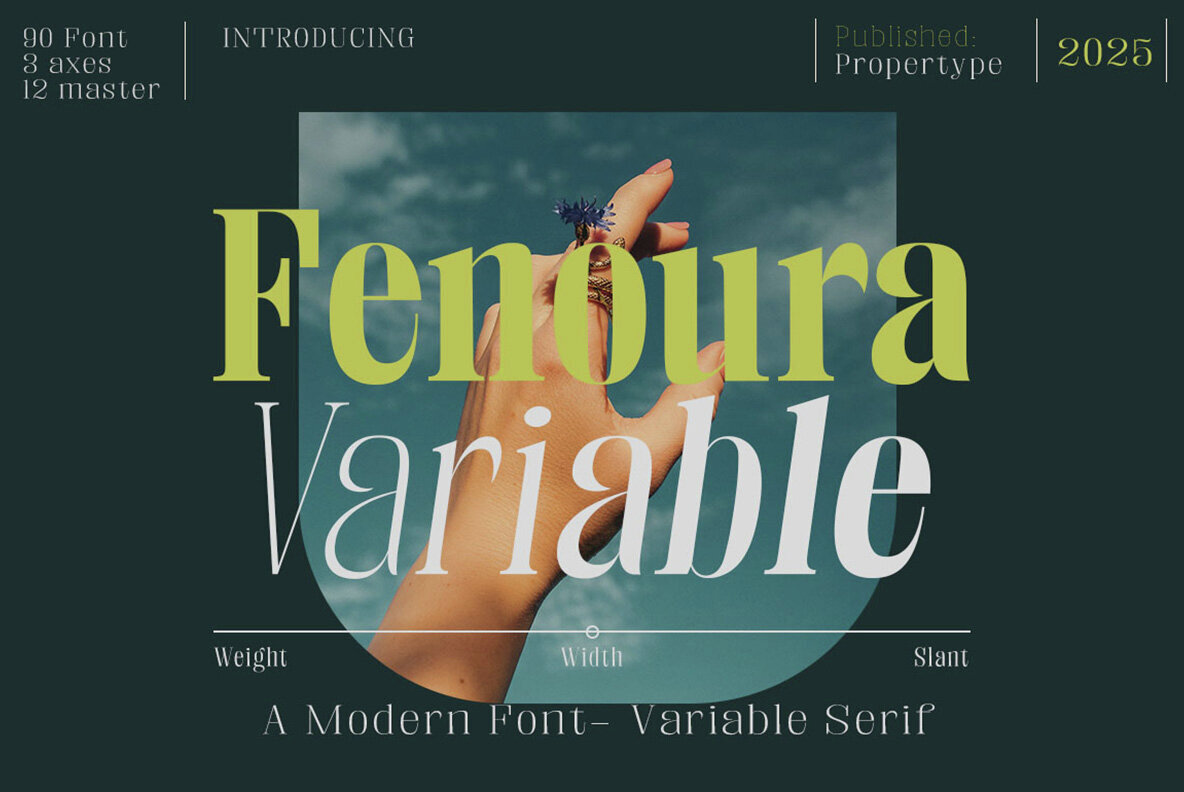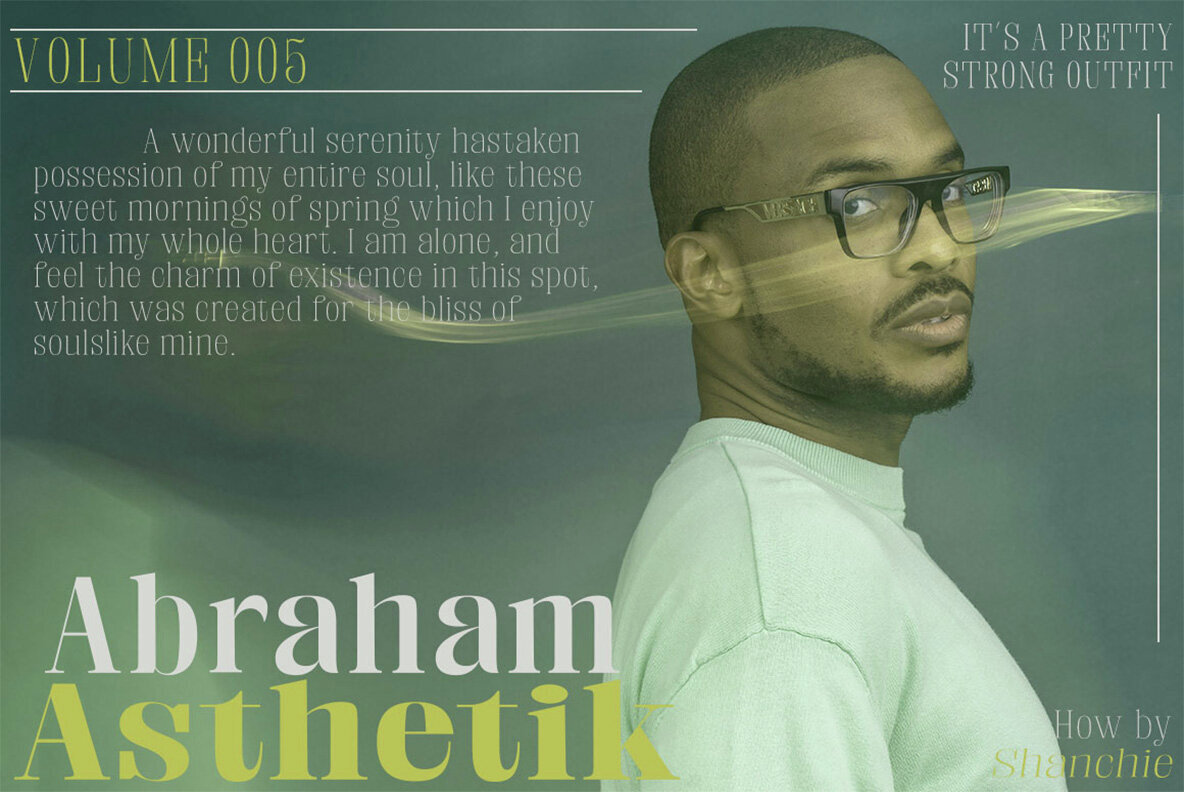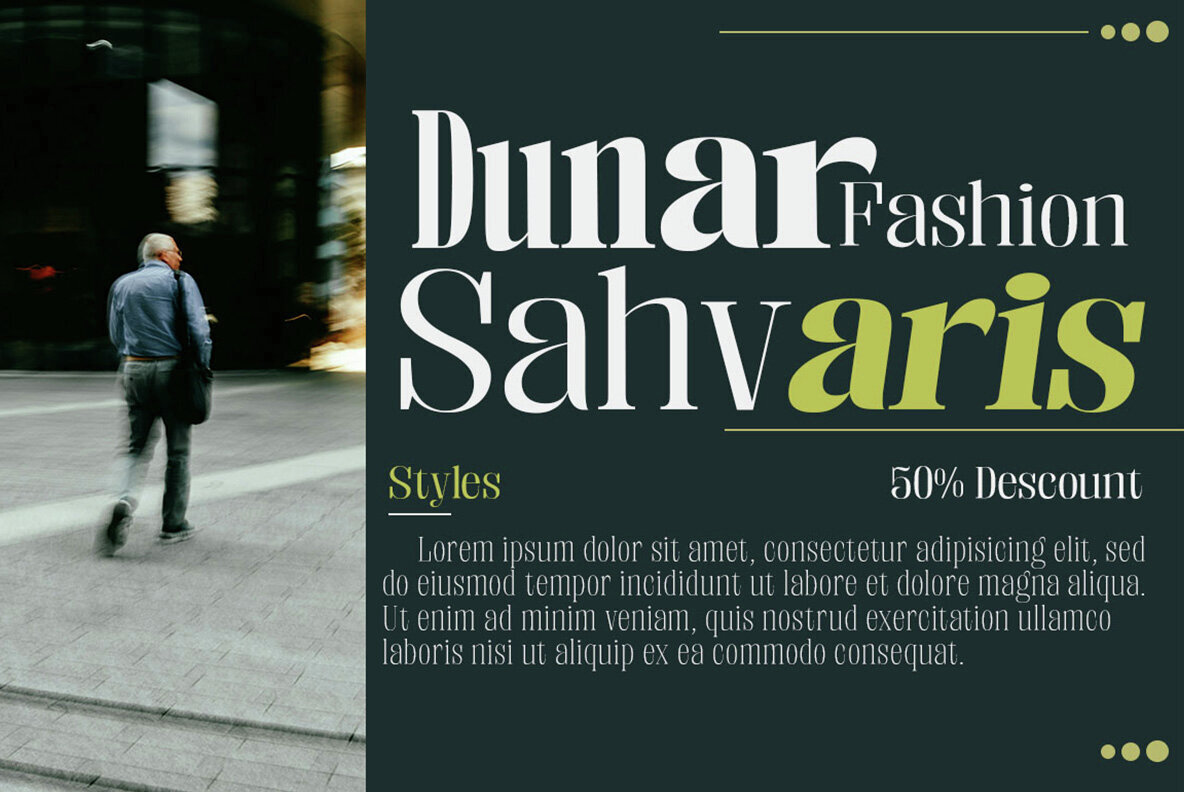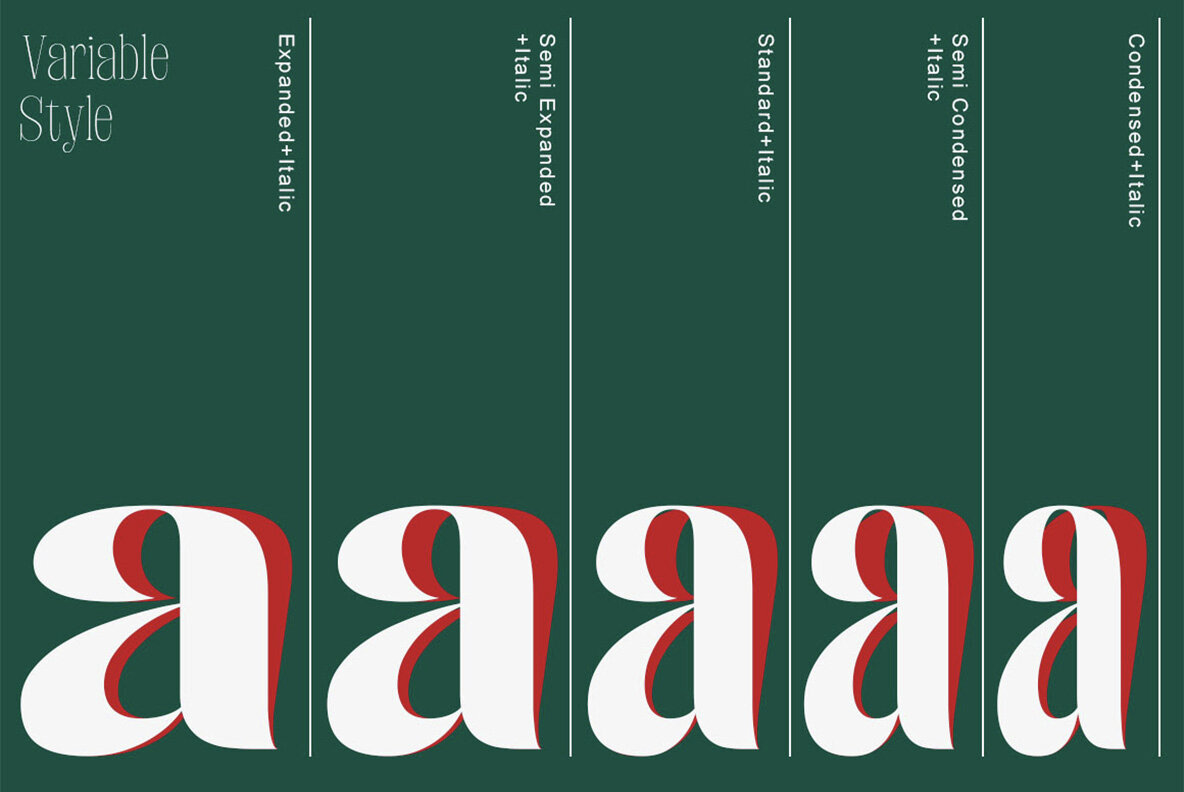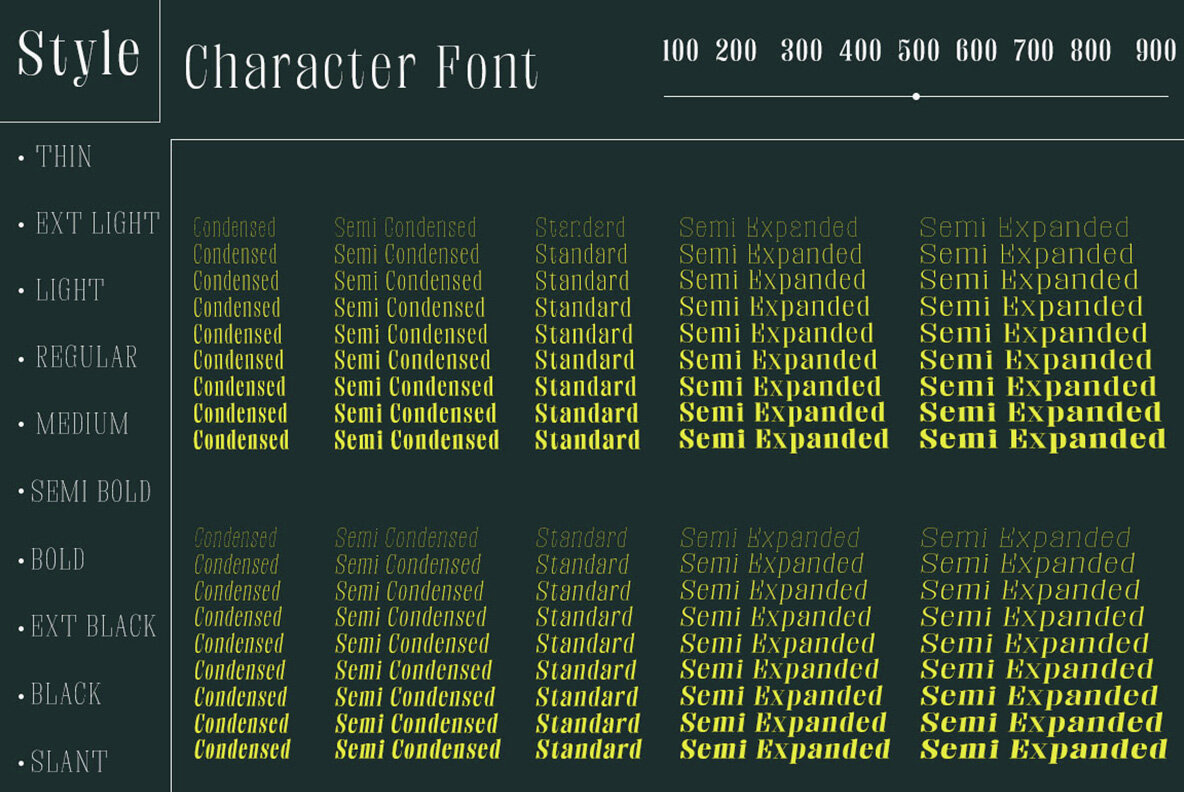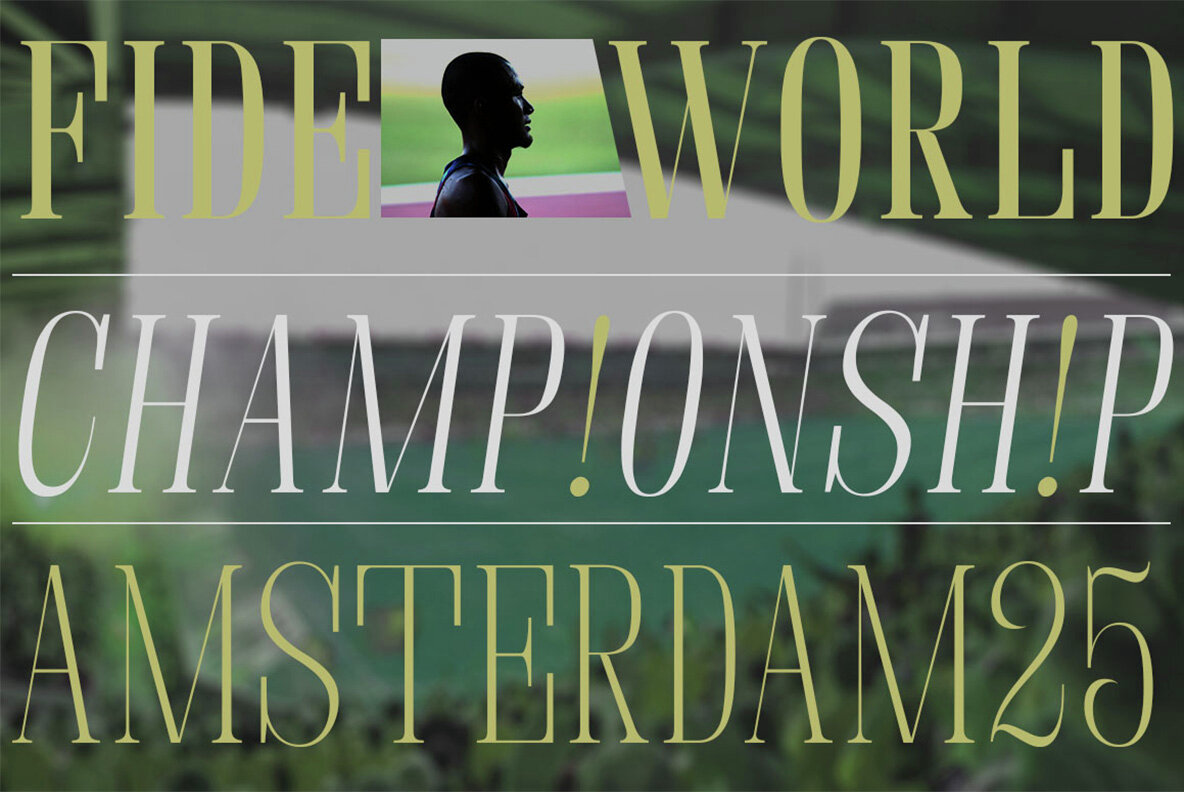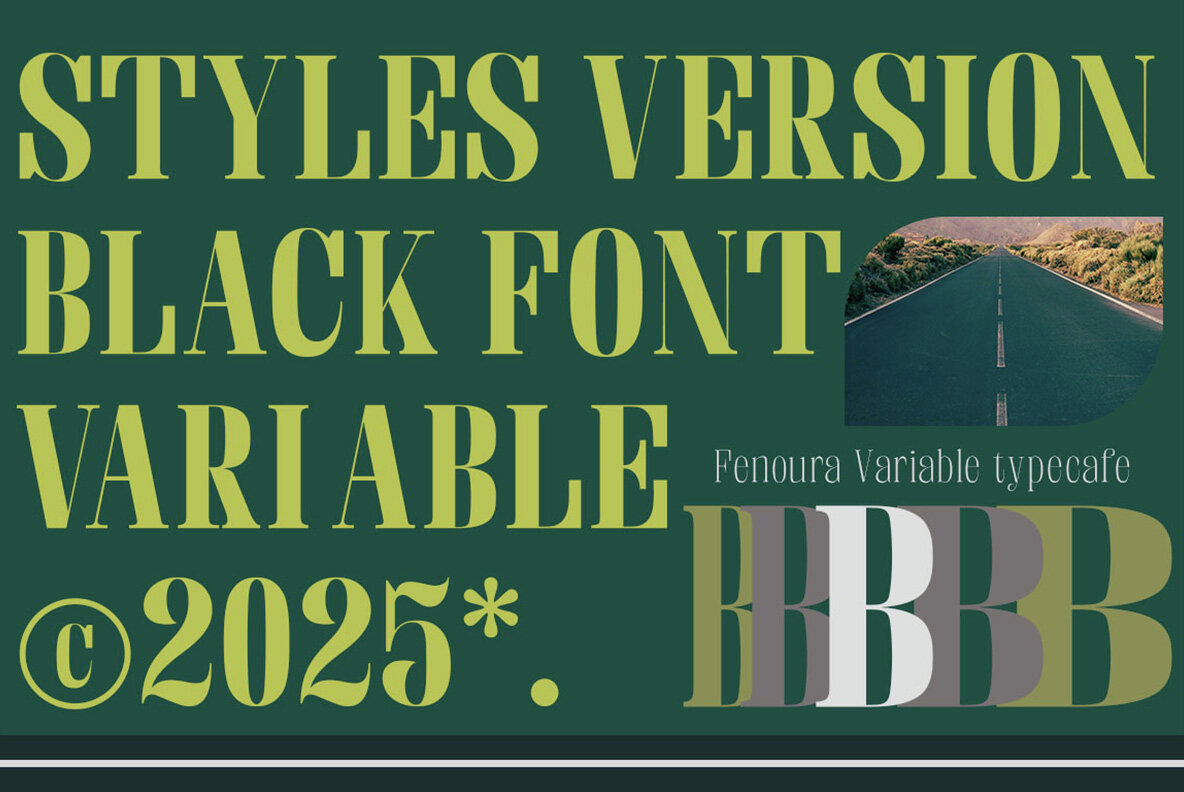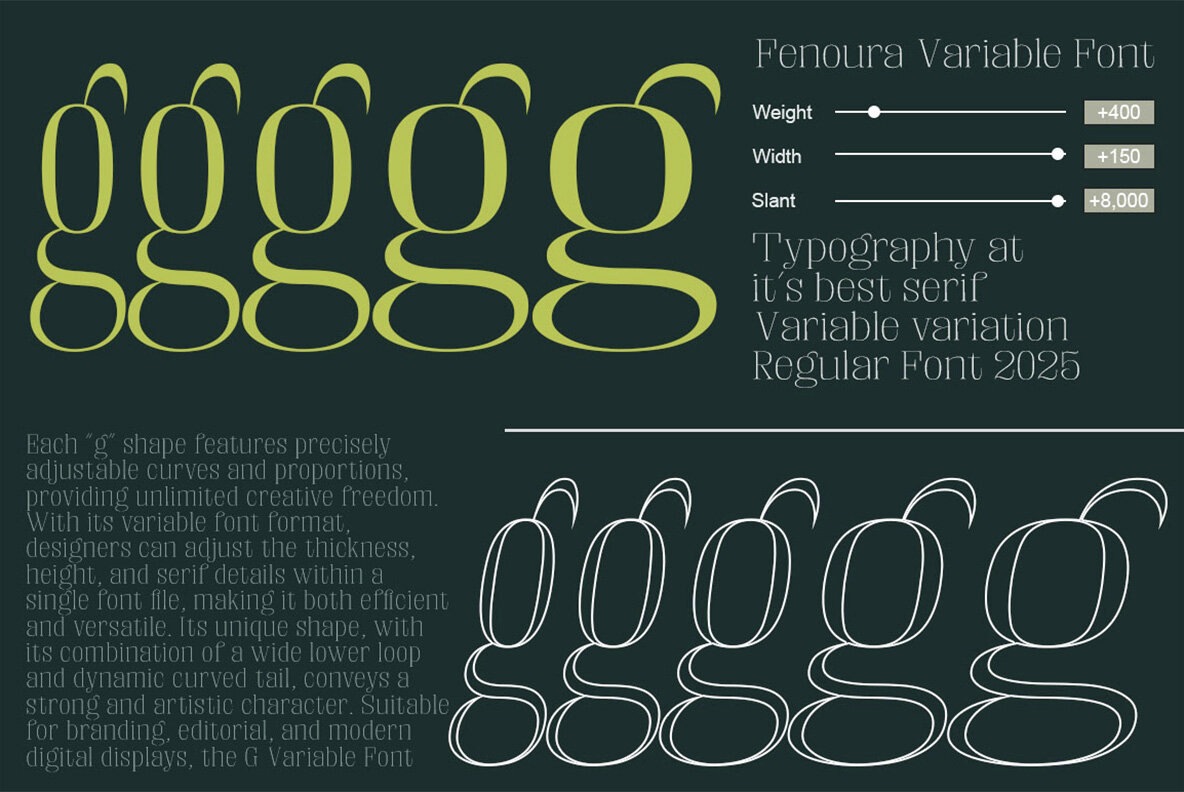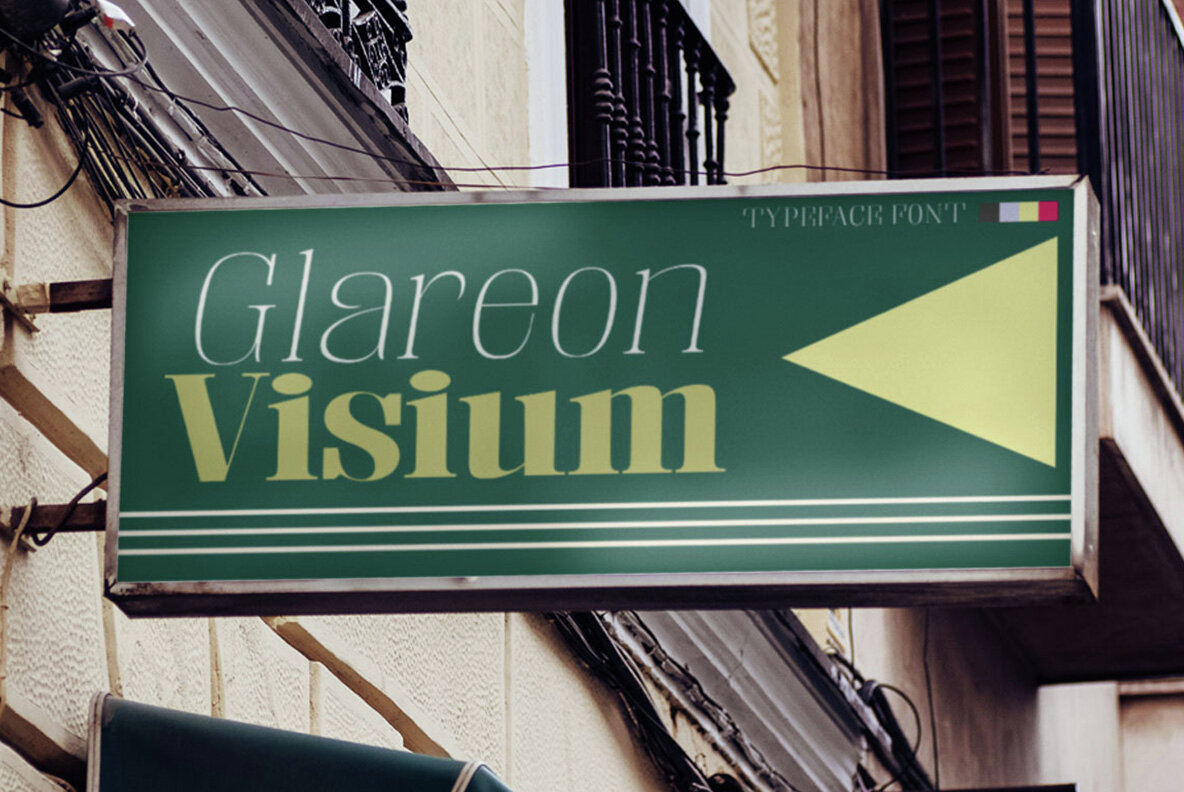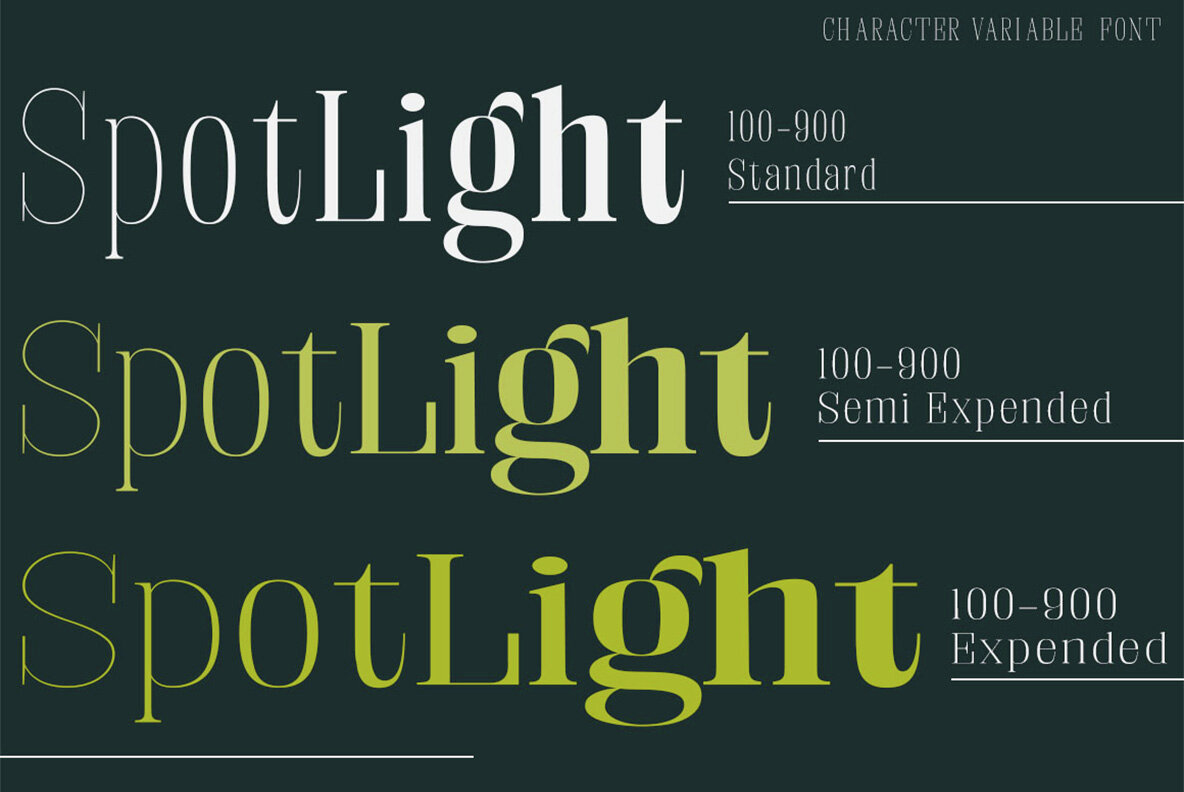
Fenoura Font
Fenoura Serif commands a luxurious elegance combined with a contemporary aesthetic. Its high contrast, strong ink adhesion, sharp shapes, and clean cuts form a distinctive look infused with personality. With numerous styles at your disposal, this typeface suits a range of design preferences. The versatility of Fenoura Serif is unmatched, offering options from subtle notes to bold, striking styles. It excels in branding, identity, editorial, logo, display, and packaging design, ensuring your projects stand out. Features:Fenoura Serif: Luxurious High-Contrast Typeface
Embrace the character and warmth of each design choice with Fenoura Serif.